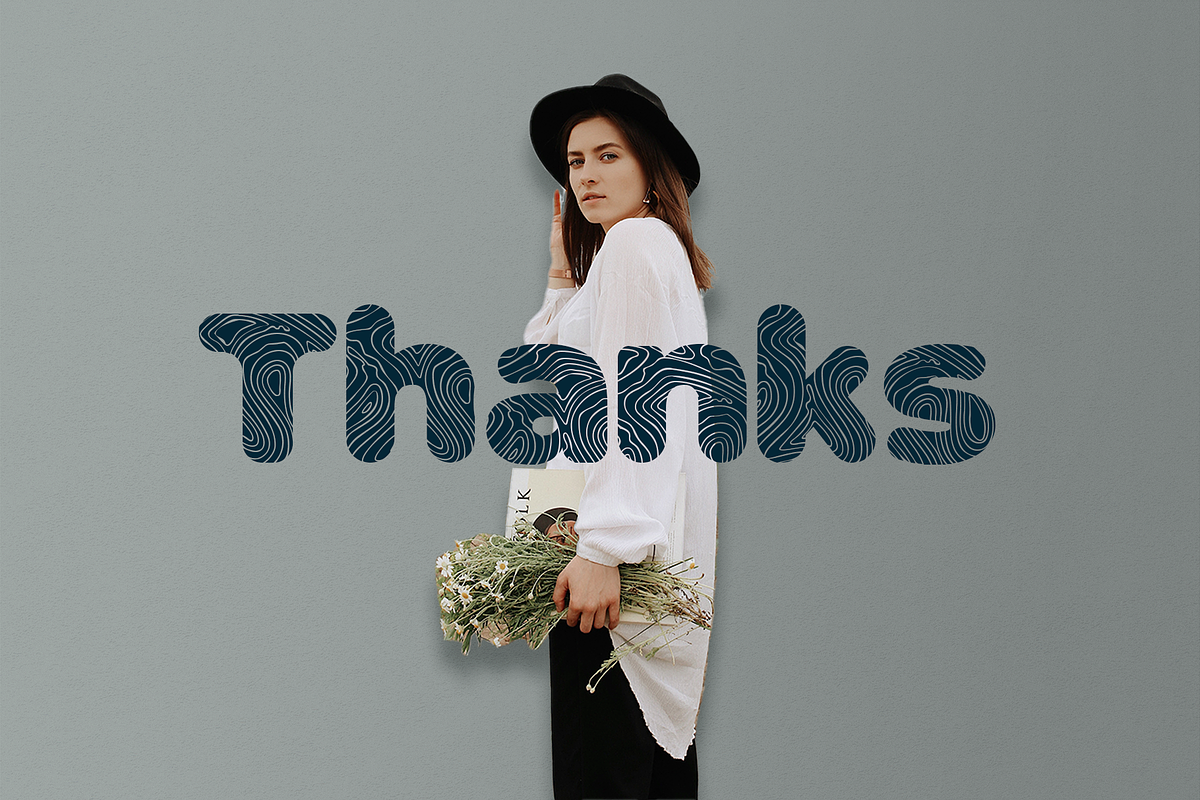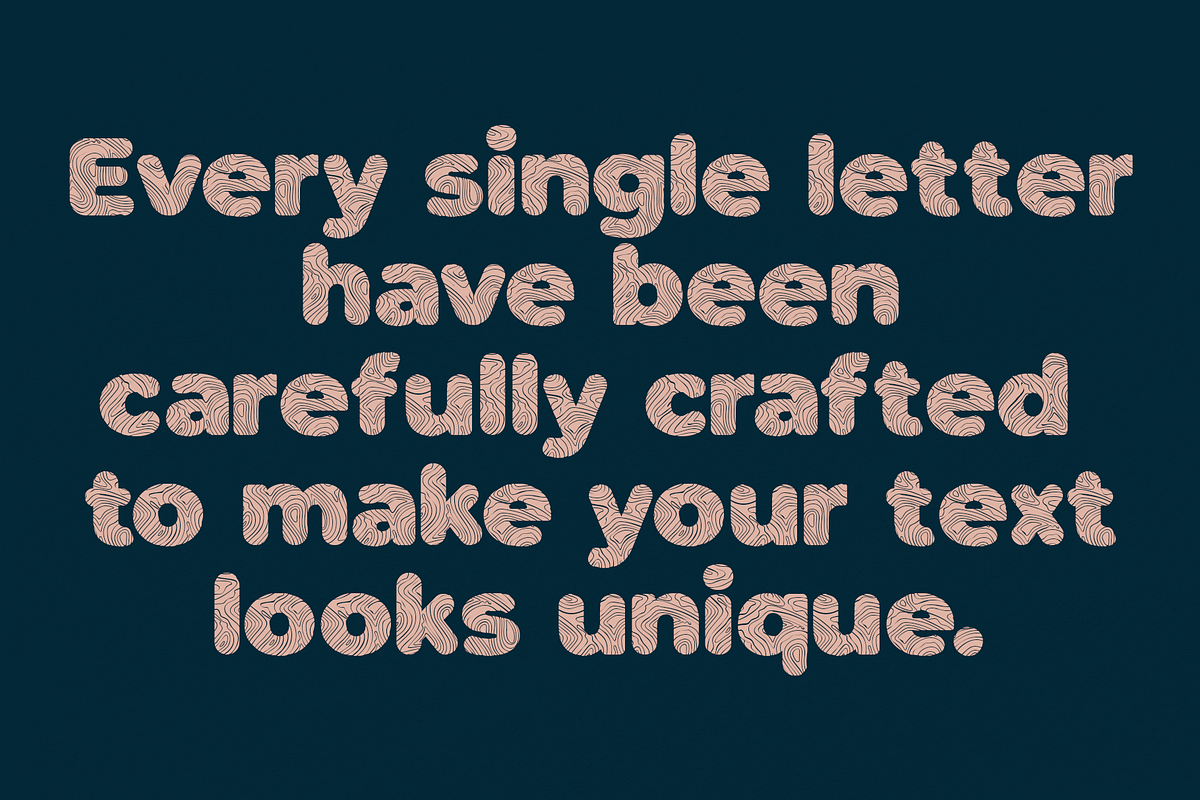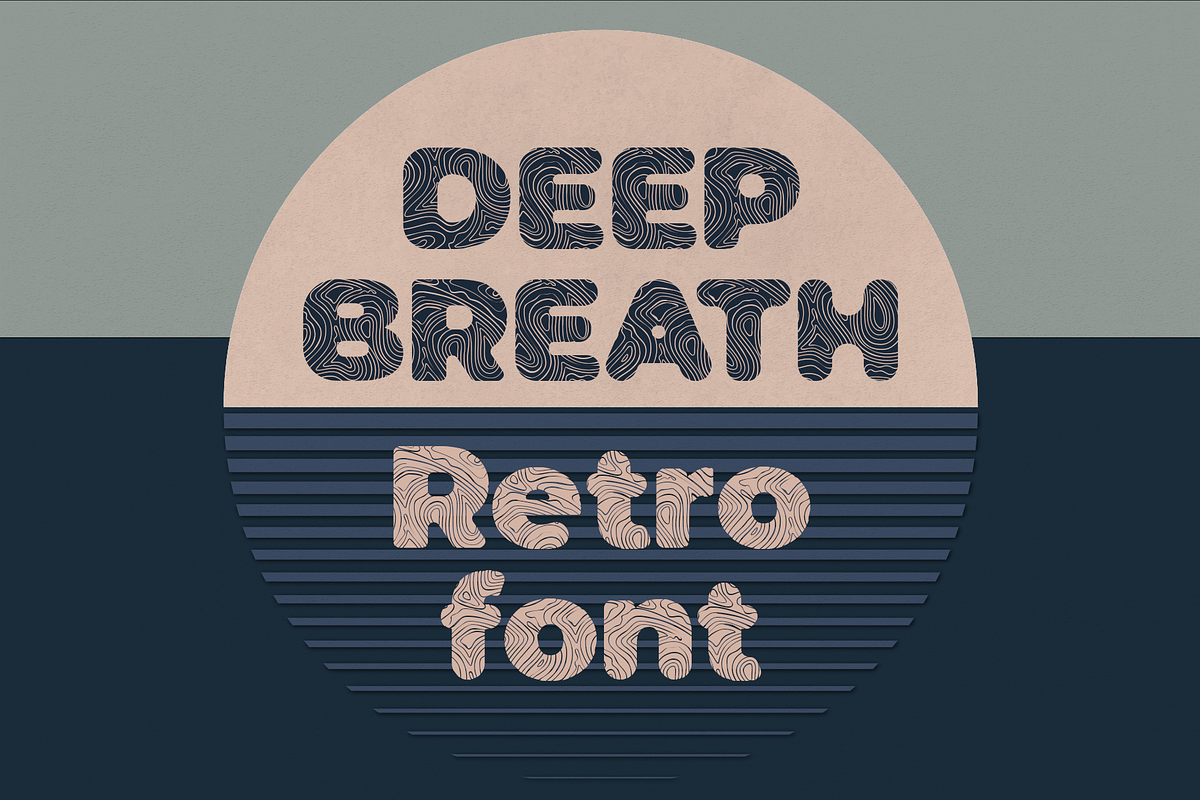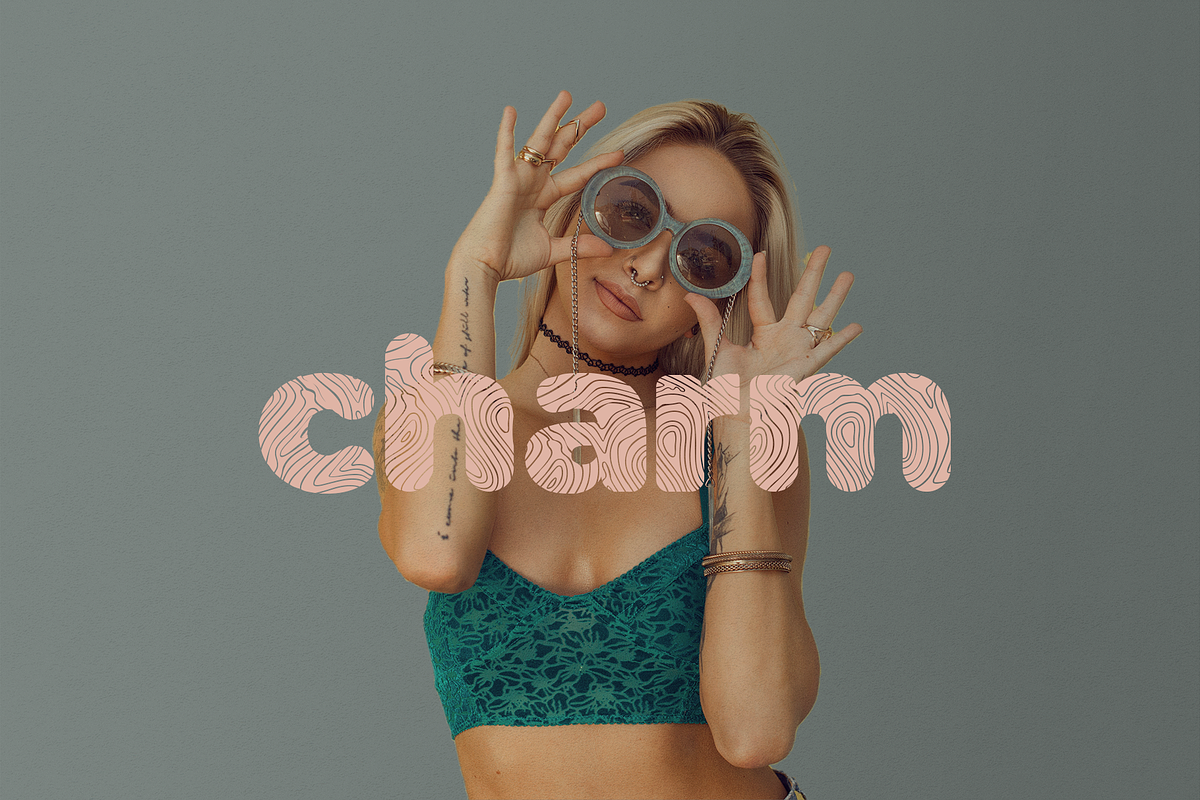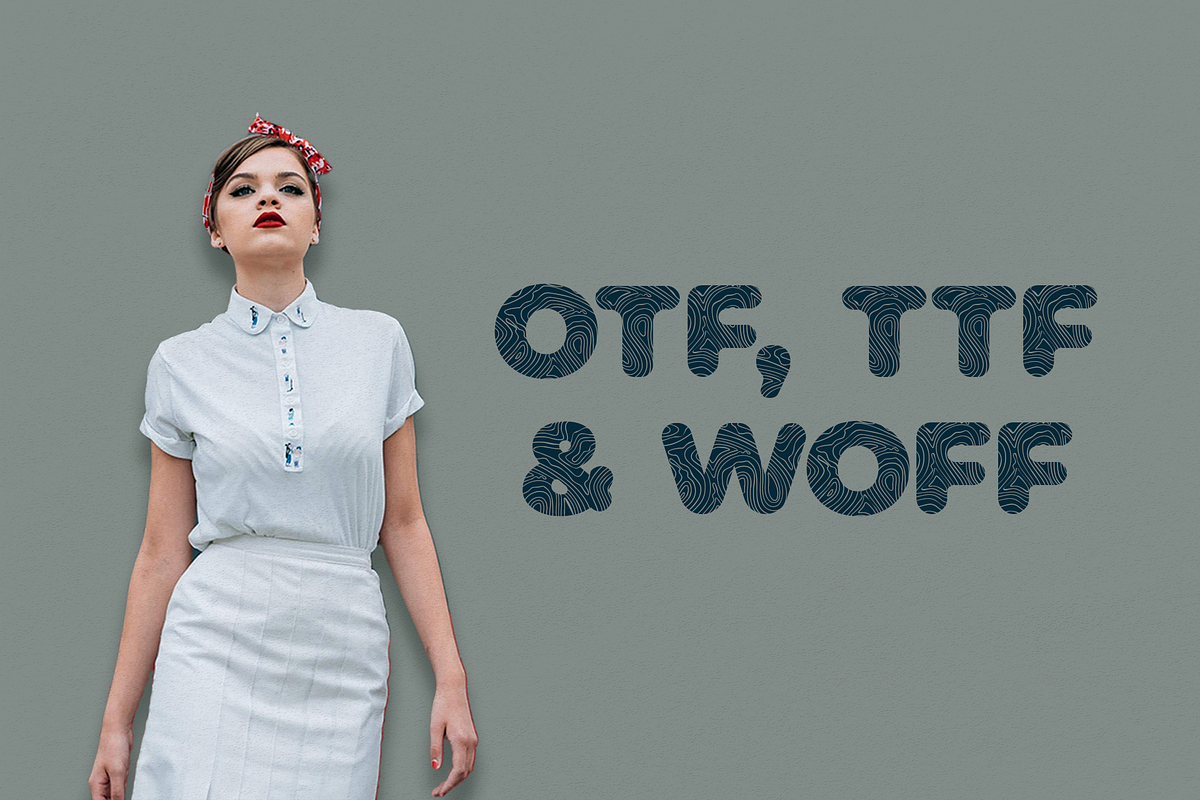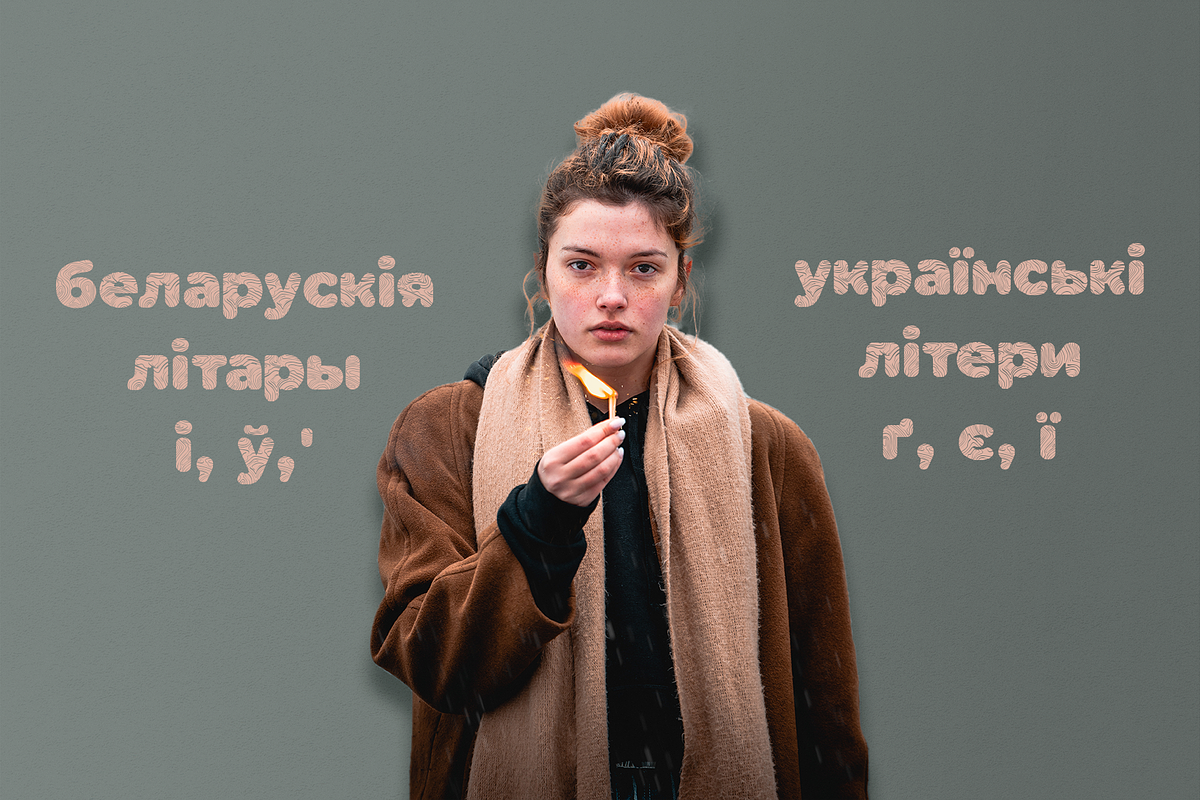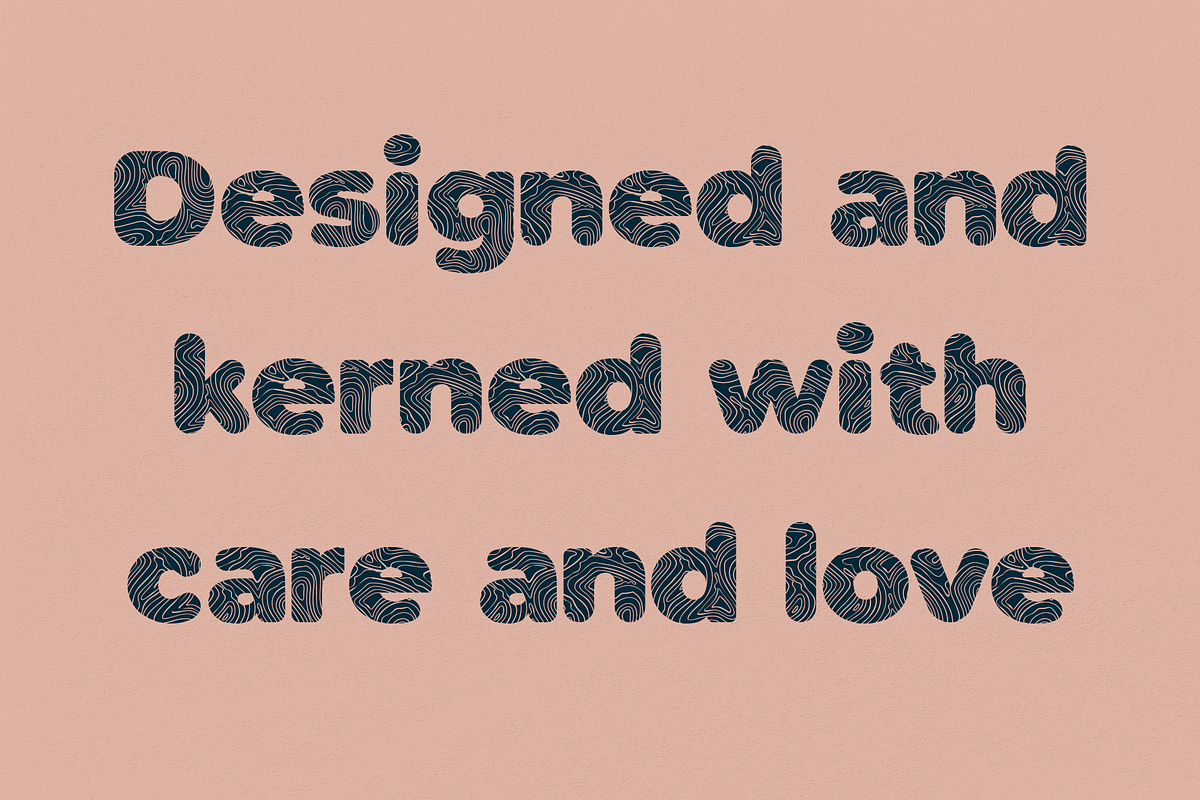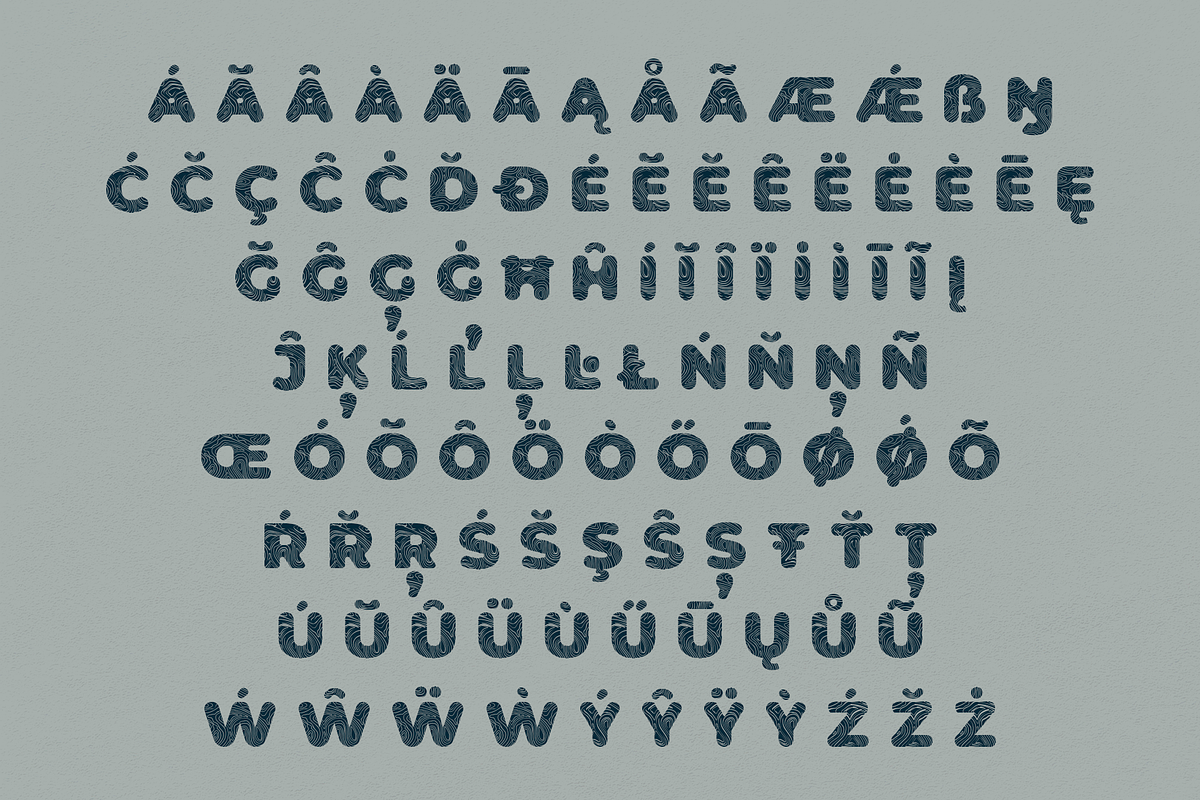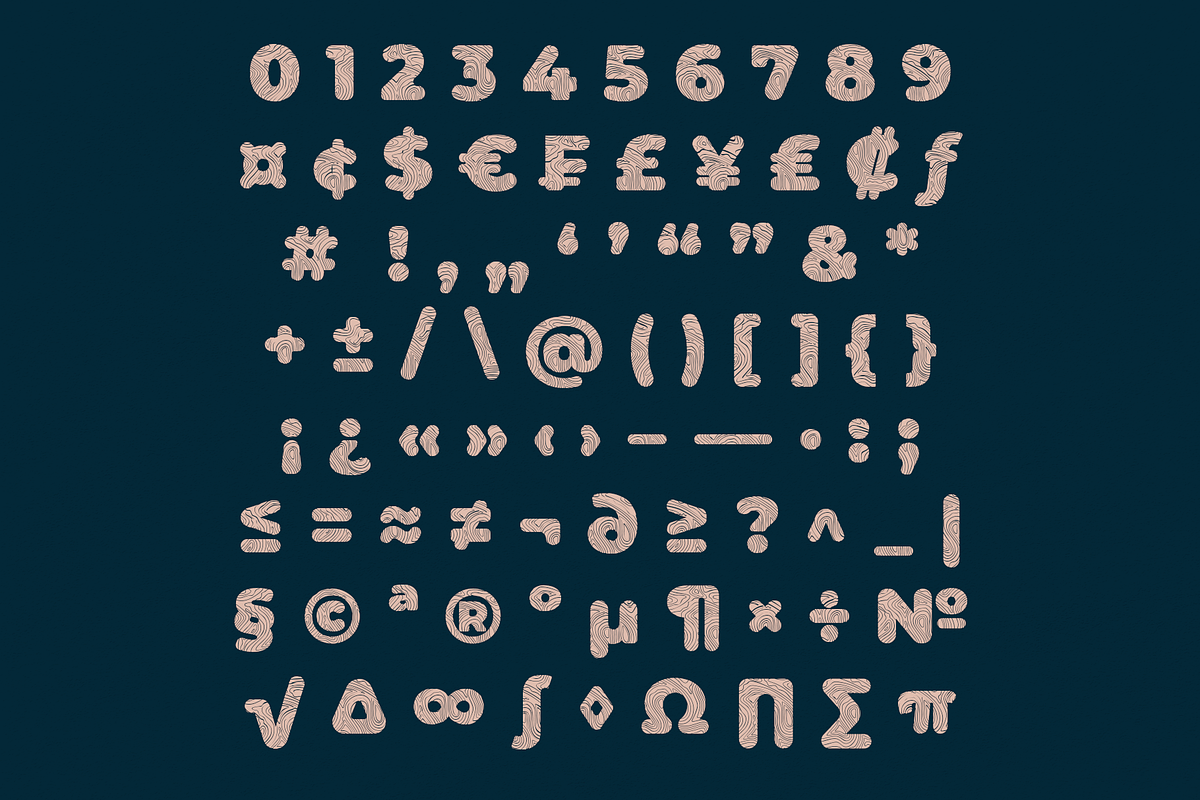
Deep Breath – Stylish Retro Typeface
Discover Deep Breath – a unique retro font that combines vintage charm with modern versatility. Perfect for logos, branding, email campaigns, and social media, this font delivers high-quality typography in seconds. Designed to impress, it includes:
Why Choose Deep Breath?
- Full character set: Uppercase, lowercase, numerals & punctuation
- Multilingual support: Special characters for European languages + Cyrillic
- Instant creativity: Elevate logos, ads, packaging, and blogs effortlessly
- Retro logos & branding
- Vintage-inspired packaging
- Social media graphics
- Email headers & ads